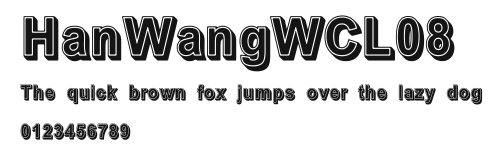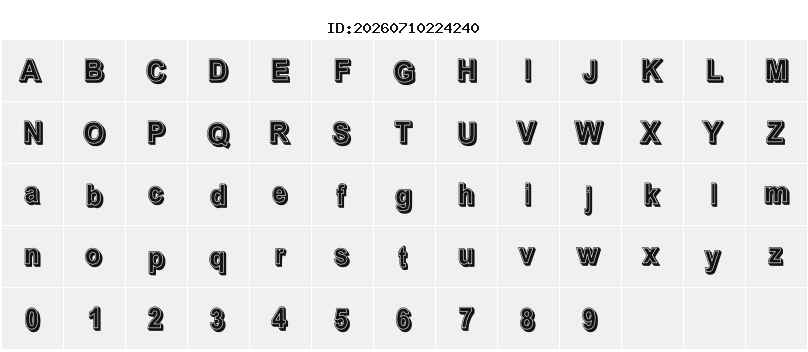
HanWangWCL08 Preview
• Font Name: HanWangWCL08
About HanWangWCL08.ttf
HanWangWCL08.ttf is a modern, elegant sans-serif font designed for ultimate readability and visual harmony. Perfect for branding, headlines, web design, and print materials.